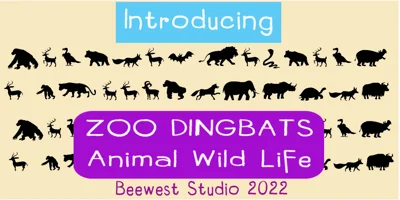
Zoo Dingbats Font
Zoo Dingbats Font is perfect for wildlife conservation materials, zoo educational graphics, children's animal activity books, veterinary clinic branding, pet store signage, nature documentary credits, safari tour marketing, animal shelter campaigns, wildlife photography watermarks, and any playful project that celebrates the incredible diversity and wonder of the animal kingdom.
What makes Zoo Dingbats Font exciting is its comprehensive collection of charming animal symbols that brings the entire zoo experience to life through delightful iconography. This typeface captures the joy of wildlife discovery with carefully crafted animal illustrations that range from majestic lions to playful penguins, creating a visual menagerie that sparks curiosity and wonder. The font's educational character makes it perfect for brands and projects that want to communicate love for animals, environmental awareness, and the fascinating diversity of creatures that share our planet.
The Zoo Dingbats Font family includes extensive animal categories and habitat groupings, featuring mammals, birds, reptiles, marine life, and exotic species along with decorative paw prints, animal tracks, and nature-inspired ornamental elements. This comprehensive collection allows designers to create engaging animal typography that maintains the font's signature educational character while providing incredible versatility for various wildlife and nature-focused design applications.
When exploring authentic animal typography, Zoo Dingbats Font represents an exceptional opportunity to work with a typeface that genuinely captures the spirit of wildlife education and animal appreciation. This font demonstrates innovative design thinking by creating instantly recognizable animal symbols that maintain both artistic appeal and educational value, making complex zoological concepts accessible and engaging for all ages.
Professional designers appreciate Zoo Dingbats Font for its ability to instantly communicate animal themes and environmental awareness across various educational and commercial platforms. The font's playful character makes it particularly effective for educational institutions, conservation organizations, and family-oriented businesses seeking to create memorable identities that resonate with audiences passionate about wildlife protection and animal welfare.
The universal appeal of Zoo Dingbats Font lies in its perfect representation of our connection to the natural world and the joy of animal discovery that transcends cultural and language barriers. This typeface serves as a powerful tool for communicating the importance of wildlife conservation and environmental stewardship in an increasingly urbanized world.
For creative professionals working with educational and conservation-focused brands, Zoo Dingbats Font represents the ultimate typography solution that brings authentic animal charm and educational value to any application, ensuring designs reflect the wonder and diversity that make the animal kingdom such an endless source of fascination and inspiration.